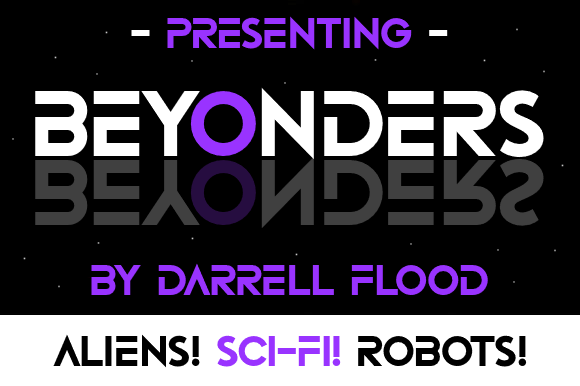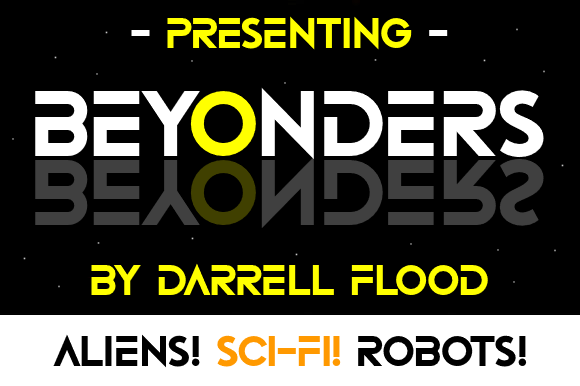
Beyonders Font: A Slick Sci-Fi Font for Modern Designs
In the realm of typography, fonts play a crucial role in conveying the tone and aesthetic of a design. For designers and crafters looking to add a touch of futurism and high-tech style to their work, the Beyonders Font is an excellent choice. This sleek sci-fi font is perfect for a variety of applications, from alien encounters and tech-related themes to electronic music presentations and everyday use.
What is Beyonders Font?
Beyonders Font is a modern, high-tech typeface designed to evoke a sense of futurism and otherworldliness. Its sleek lines, precise curves, and technical aesthetic make it an ideal choice for designs that require a cutting-edge look. Whether you’re working on a project that involves space exploration, advanced technology, or electronic music, this font is sure to impress.
Key Features of Beyonders Font
- Modern and sleek design: Beyonders Font boasts a contemporary design that is both visually striking and highly legible.
- High-tech aesthetic: The font’s technical look and feel make it perfect for designs that require a futuristic or sci-fi theme.
- Versatile: Beyonders Font can be used for a wide range of applications, from digital projects to print materials.
- Easily readable: Despite its futuristic design, the font remains highly legible, even at smaller sizes.
Use Cases for Beyonders Font
The versatility of Beyonders Font makes it suitable for various design projects. Here are some use cases where this font truly shines:
- Alien encounters and sci-fi themes: The font’s otherworldly design makes it a natural fit for projects that involve space exploration, alien encounters, or sci-fi storytelling.
- Tech-related themes: For designs that involve technology, innovation, or modern science, Beyonders Font provides a perfect blend of modernity and futurism.
- Electronic music presentations: The font’s sleek and high-tech aesthetic makes it an excellent choice for electronic music artists, DJs, or music producers looking to create visually striking presentations or album art.
- Everyday use: Beyond its specialized applications, Beyonders Font can also be used for everyday design tasks, such as creating social media graphics, posters, or flyers.
Beyonders Font offers several benefits for designers and crafters looking to elevate their work:
- Time-saving: With its pre-designed characters and symbols, Beyonders Font saves designers time and effort, allowing them to focus on other creative aspects of their project.
- Consistency: Using a single font throughout a design project ensures consistency and cohesiveness, which is essential for creating a professional-looking final product.
- Inspiration: The unique design of Beyonders Font can serve as a source of inspiration for designers, helping them to think outside the box and explore new creative possibilities.
Tips for Using Beyonders Font
To get the most out of Beyonders Font, consider the following tips:
- Experiment with font sizes: While Beyonders Font remains legible at smaller sizes, experimenting with different font sizes can help you to achieve the desired visual impact.
- Pair with complementary fonts: For added visual interest, try pairing Beyonders Font with complementary fonts that share a similar aesthetic or contrast with its futuristic design.
- Use in combination with graphics: The font’s sleek design makes it an excellent choice for use in combination with graphics, such as icons, logos, or images.
Beyonders Font is a versatile and visually striking typeface that is perfect for designers and crafters looking to add a touch of futurism and high-tech style to their work. With its modern design, technical aesthetic, and wide range of applications, this font is sure to become a staple in any designer’s toolkit. Whether you’re working on a sci-fi themed project, electronic music presentation, or simply looking for a sleek font for everyday use, Beyonders Font is an excellent choice.